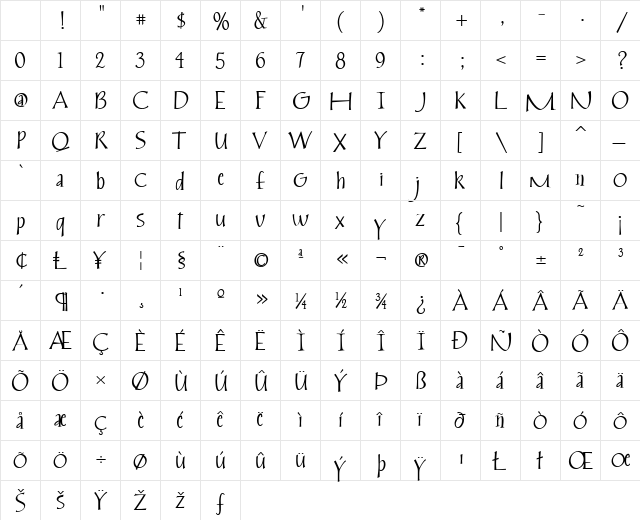
Complete Inkster Regular glyph index. Displaying only characters natively supported by Inkster Regular font.
Inkster is a composed and adaptable typeface that performs quietly and consistently across a wide range of design contexts.